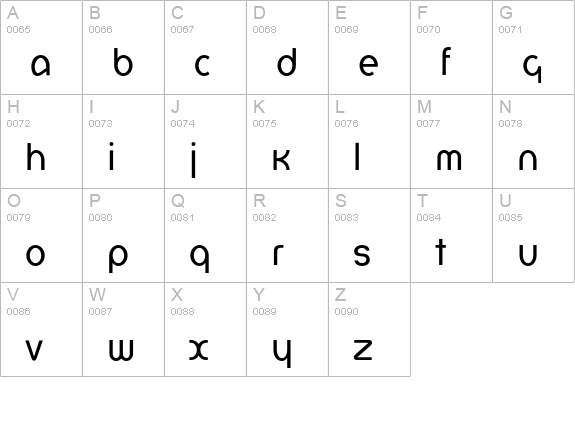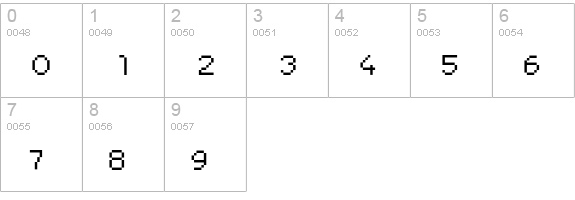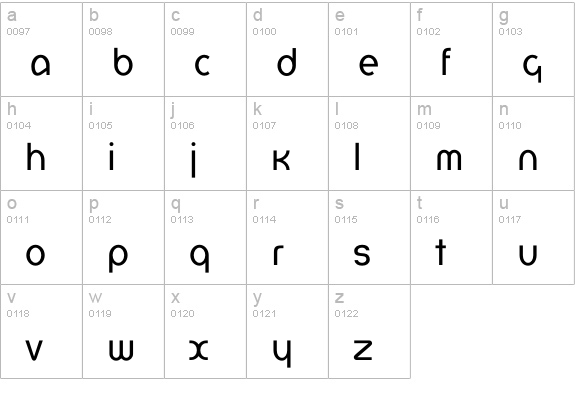
LowerDemo-Regular is the standard, neutral variant in the LowerDemo typeface family \xE2\x80\x94 well suited to general body text, paragraphs, and standard typographic work.
LowerDemo-Regular is a versatile and modern font that exudes simplicity and elegance. With its clean lines and rounded edges, this font is perfect for a wide range of design projects, from logos to posters to websites. LowerDemo-Regular is a free font that is available for download at FontsMarket.com, making it accessible to designers and creatives looking to add a touch of sophistication to their work. Its legibility and readability make it suitable for both print and digital applications, ensuring that your message will be conveyed clearly and effectively. Add a touch of style to your designs with LowerDemo-Regular today!